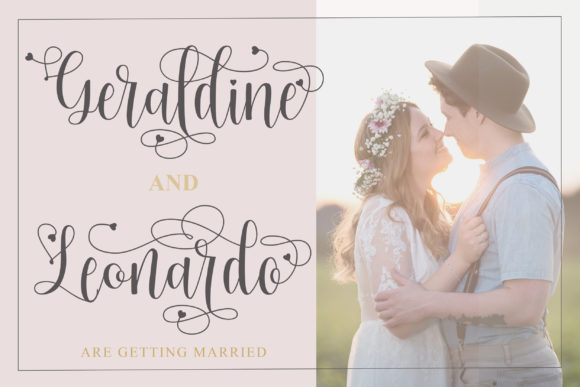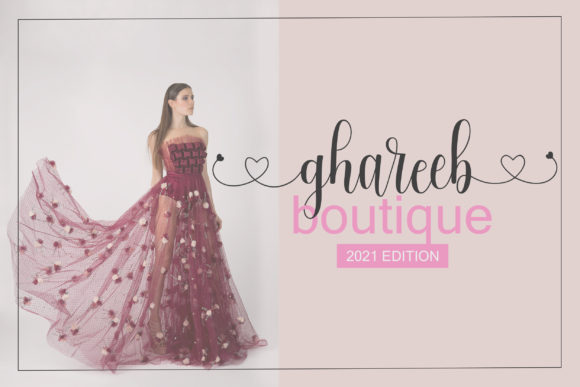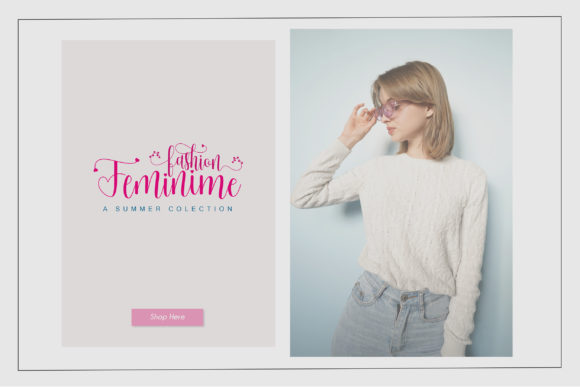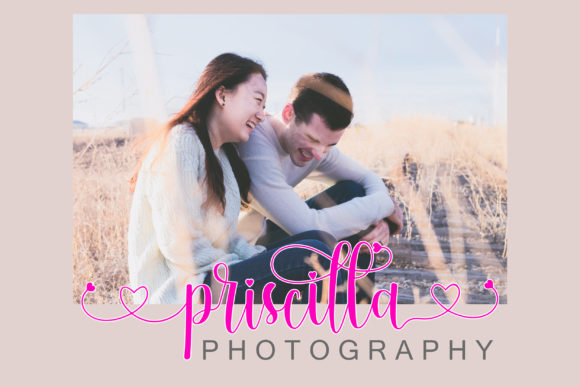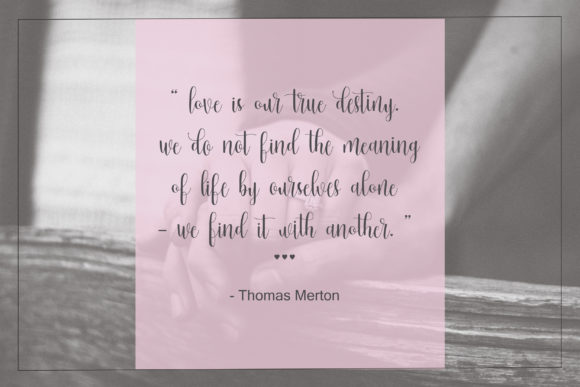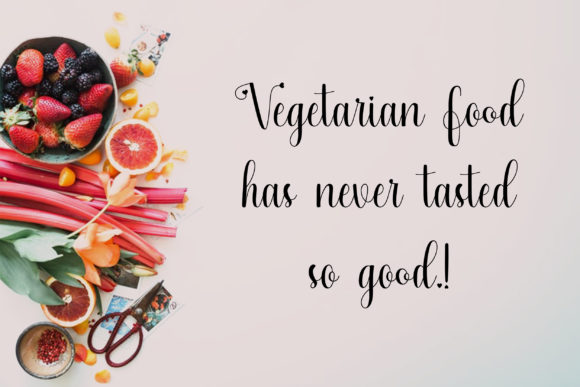
Introducing Hanifah Font: Elevate Your Designs with Elegance and Flair
Are you a designer or crafter looking for a font that exudes elegance and sophistication? Look no further than Hanifah Font, a stunning handwritten font that is sure to take your designs to the next level. With its flowing lines, beautiful glyphs, and varying baseline, Hanifah Font is the perfect choice for a wide range of design projects, from wedding invitations and greeting cards to logos and business cards.
The Beauty of Hanifah Font
Hanifah Font is a true masterpiece of typography. Its elegant and flowing design makes it perfect for adding a touch of sophistication to any design project. The font features a varying baseline, which gives it a natural, handwritten feel that is sure to capture the attention of your audience. The smooth lines and gorgeous glyphs add to the font’s beauty, making it a joy to use in a wide range of design applications.
Wedding invitations, thank you cards, and other event designs are a perfect match for Hanifah Font. The font’s elegant and sophisticated design makes it ideal for formal events, and its flowing lines and beautiful glyphs add a touch of romance and whimsy. Whether you’re designing invitations, programs, or other event materials, Hanifah Font is sure to make a lasting impression.
More Than Just Wedding Designs
While Hanifah Font is perfect for wedding and event designs, its uses don’t stop there. The font is also great for a wide range of other design projects, including:
• Quotes and posters: Add a touch of elegance and sophistication to your quotes and posters with Hanifah Font.
• Greeting cards: Make your greeting cards stand out with the beautiful, flowing lines of Hanifah Font.
• Logos: Use Hanifah Font to create a unique and memorable logo for your business or brand.
• Business cards: Add a touch of elegance and sophistication to your business cards with Hanifah Font.
What Makes Hanifah Font So Special?
So what sets Hanifah Font apart from other fonts? Here are just a few of the features that make it so special:
• Varying baseline: Gives the font a natural, handwritten feel.
• Smooth lines: Add to the font’s elegance and sophistication.
• Gorgeous glyphs: Make the font a joy to use in a wide range of design applications.
• Stunning alternates: Provide even more flexibility and creativity in your designs.
Tips for Using Hanifah Font
Here are a few tips for getting the most out of Hanifah Font:
• Use it sparingly: Hanifah Font is a statement font, so use it sparingly to make the most impact.
• Pair it with other fonts: Experiment with pairing Hanifah Font with other fonts to create a unique and interesting design.
• Play with sizes: Don’t be afraid to experiment with different font sizes to add visual interest to your design.
Hanifah Font is a truly special font that is sure to elevate your designs to the next level. With its elegant and flowing design, varying baseline, smooth lines, and gorgeous glyphs, it’s the perfect choice for a wide range of design projects. Whether you’re a designer or crafter, Hanifah Font is a must-have in your font collection. So why wait? Download Hanifah Font today and start creating beautiful, elegant designs that will leave a lasting impression on your audience.